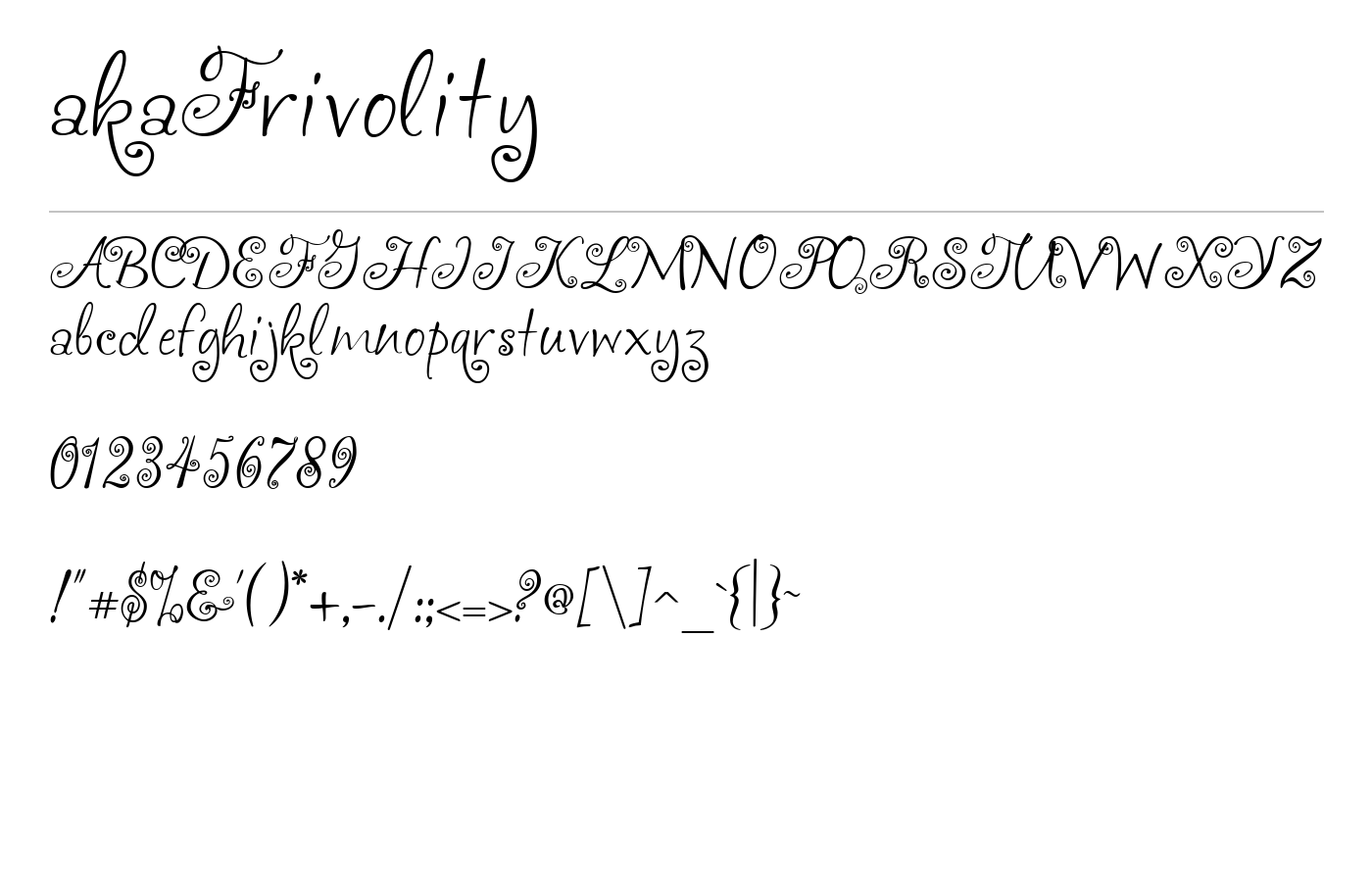
akaFrivolity is a whimsical script font with delicate, thin strokes and playful, curly embellishments on many characters, giving it a light and airy feel. Its slender, handwritten style and decorative swirls make it ideal for creative projects seeking a touch of elegance and charm, such as invitations, greeting cards, and feminine branding. This font's unique character and lively personality shine best in headlines and decorative uses rather than extended text.
akaFrivolity Font
About akaFrivolity Font
| Designer | James Milligan |